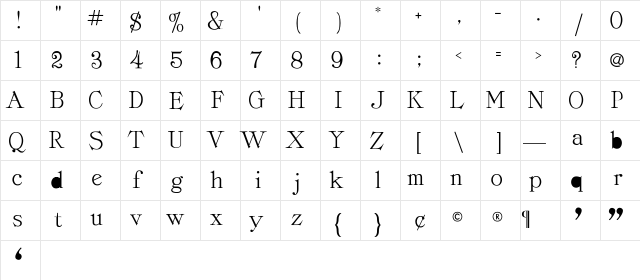
Complete RSClassicaRoman Regular glyph index. Displaying only characters natively supported by RSClassicaRoman Regular font.
RSClassicaRoman wears its vintage influences proudly, with letterforms that recall mid-century signage, classic packaging, and nostalgia-driven design.
Font Pairing: Combine RSClassicaRoman with a simple slab or neutral sans - period-accurate companions reinforce the vintage feel without competing for attention.
Pro Tip: Lean into RSClassicaRoman's period character by pairing it with aged paper textures, muted colour palettes, and vintage illustration styles.